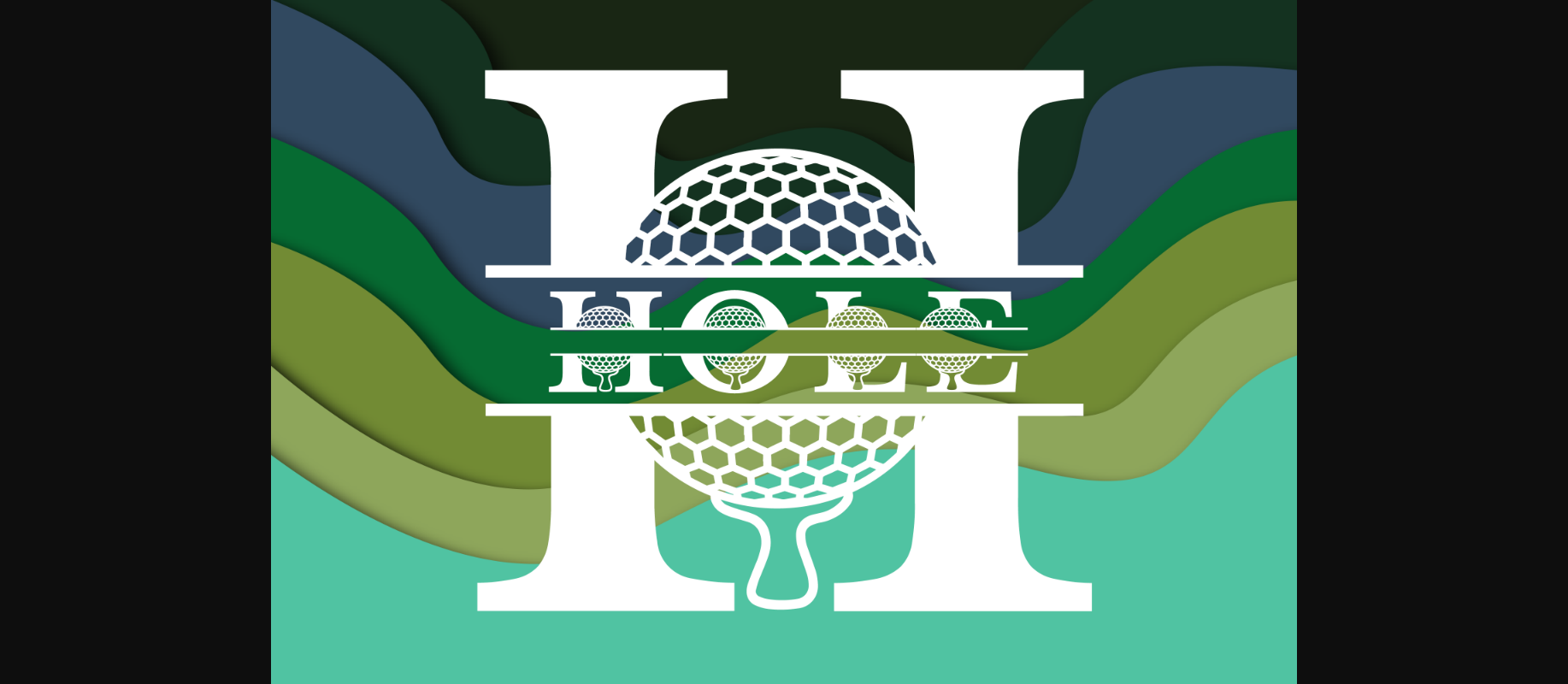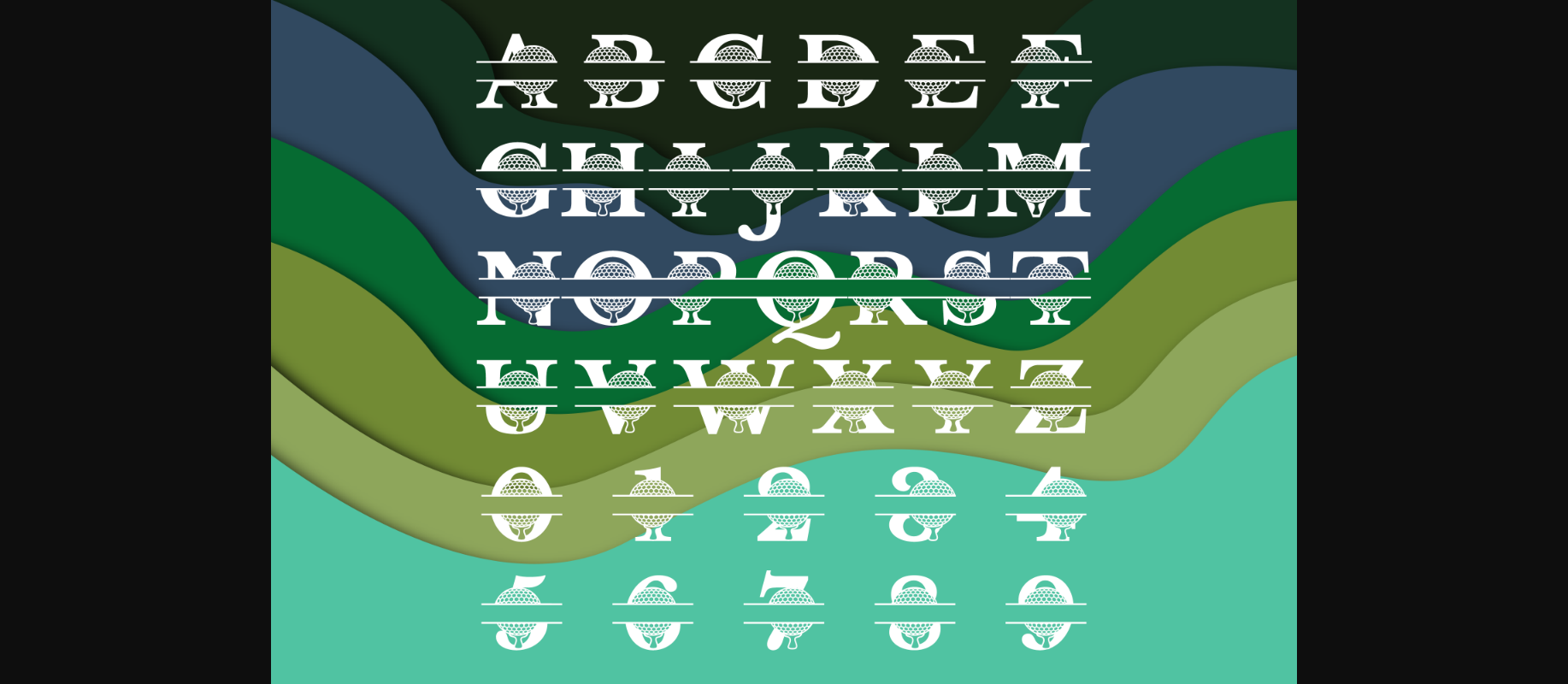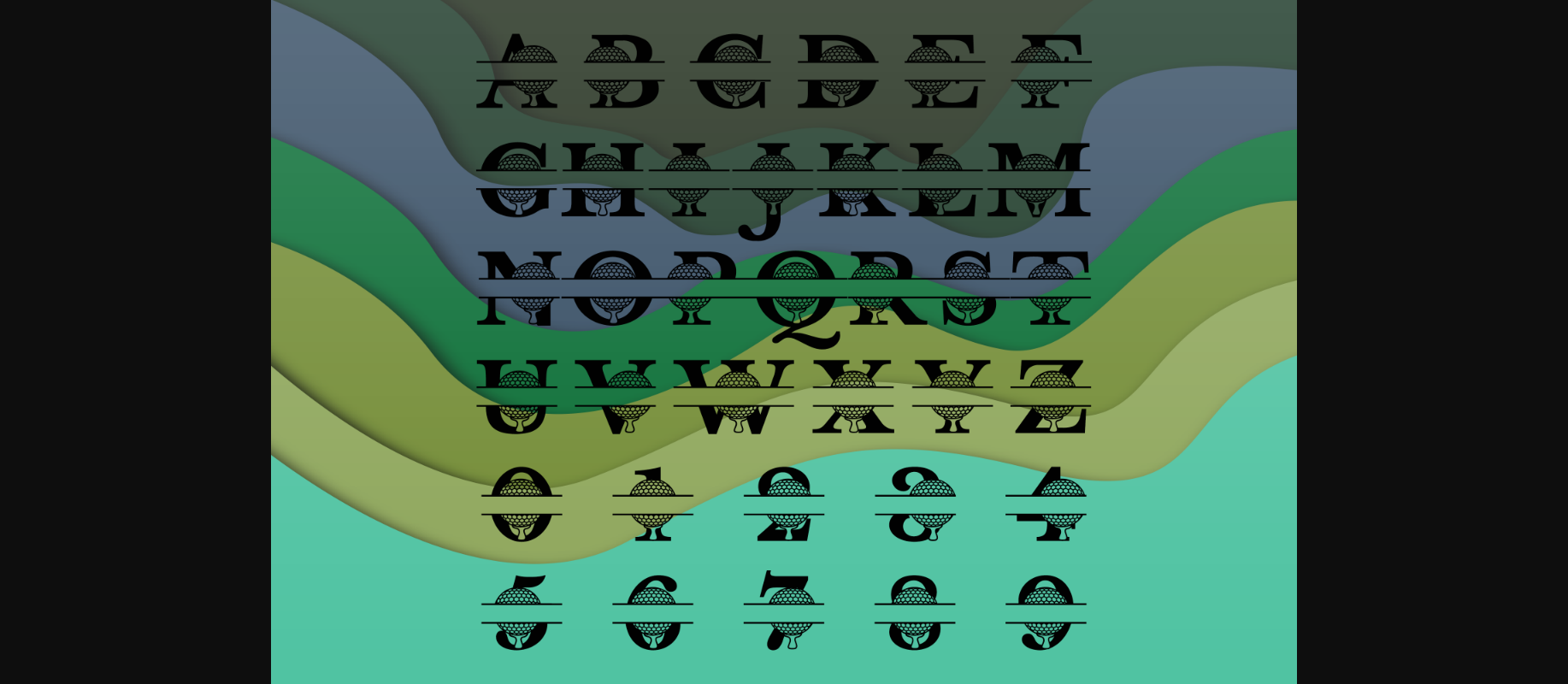
Hole In One is an incredibly cool decorative font. Whether you use it for custom designs, DIY crafts, or just any creation that requires a lovely touch, this font will be an amazing choice.